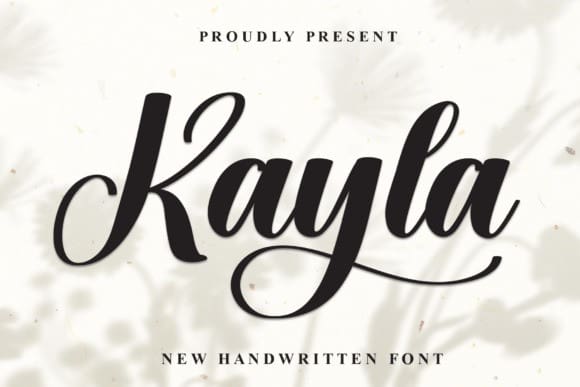
Kayla Script Font
Kayla Script Font is a lovely handwritten font with a graceful and stylish look. Its flowing, neat lines give it a personal touch, making your words look elegant and unique.